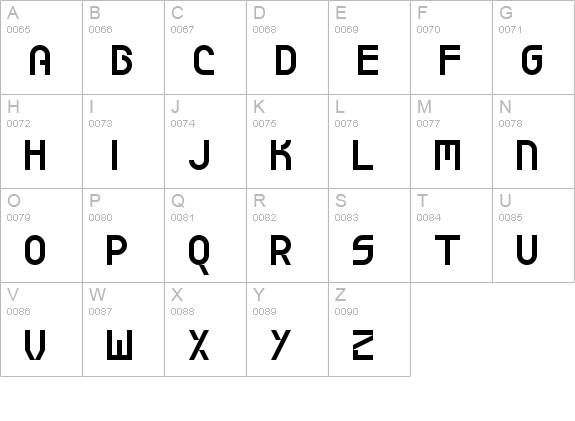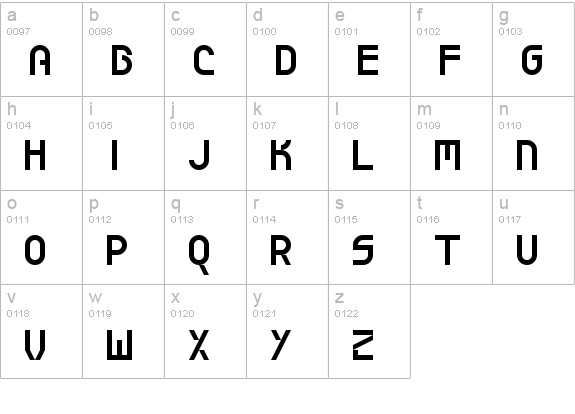
Energy Dome NBP Font Details
The Energy Dome NBP font is a truly captivating and dynamic typeface that exudes an electrifying energy. Its sleek and modern design is perfect for adding a touch of power and sophistication to any project. The letters are meticulously crafted with bold lines and sharp edges, creating a sense of movement and vitality. But what sets Energy Dome NBP font apart from the rest is its incredible versatility and unique character. Whether you're designing a logo, creating a poster, or crafting a headline, this font will make your text jump off the page and demand attention. It effortlessly captures the essence of energy and excitement, making it the ideal choice for projects that require a vibrant and impactful visual presence. And the best part? Energy Dome NBP font is available for free download at FontsMarket.com. This means that you can enjoy the power and beauty of this font without breaking the bank. Whether you're a professional designer or a passionate hobbyist, having access to high-quality fonts like Energy Dome NBP font can truly elevate your creative endeavors. So why wait? Download Energy Dome NBP font today and unleash its electrifying potential in your next design project. Let your text come alive with energy, style, and impact. Embrace the freedom of expression and creativity that comes with this remarkable font. Remember, great design starts with great typography, and Energy Dome NBP font is here to empower your vision.